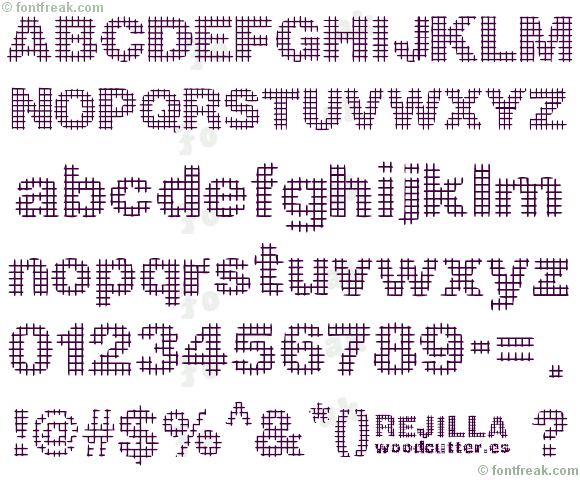
REJILLA
The REJILLA font by woodcutter Manero is a distinctive display typeface that captures attention with its unique grid-like design. This font features a bold, structured appearance characterized by a uniform stroke weight and a strong geometric aesthetic. The lines are meticulously arranged, creating a visually striking interplay of positive and negative space that offers a sense of modernity and creativity. The design has minimal contrast, which enhances its legibility, making it suitable for various applications.
Ideal for graphic designers and content creators, REJILLA is particularly well-suited for projects that require a contemporary touch. It works beautifully on wedding invitations, where its unique style can add a modern flair. Additionally, it can elevate restaurant menus, giving them a creative edge that stands out from traditional fonts. Movie posters will also benefit from the boldness of REJILLA, drawing viewers' eyes and creating a memorable visual impact. Small business owners looking to create a distinctive brand identity can utilize this font in logos and promotional materials, ensuring their message is both clear and captivating.
The target audience for the REJILLA font includes graphic designers seeking innovative type options, small business owners looking to differentiate their branding, and content creators who want to add a unique flair to their projects. With its freeware license, the REJILLA font is accessible to anyone, making it a valuable resource for a wide array of creative endeavors.
What makes the REJILLA font stand out is its extraordinary ability to blend creativity with functionality. Its distinctive design not only captures attention but also conveys a sense of modernity that can elevate any project. For those interested in exploring this unique typeface, the REJILLA font free download offers an excellent opportunity to incorporate this artistic element into their work.